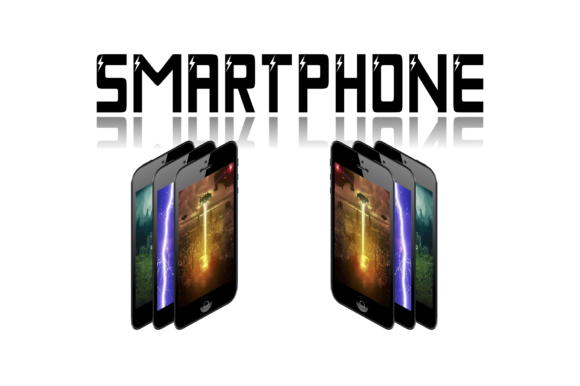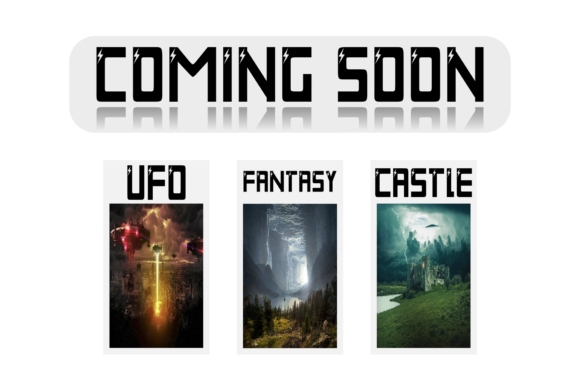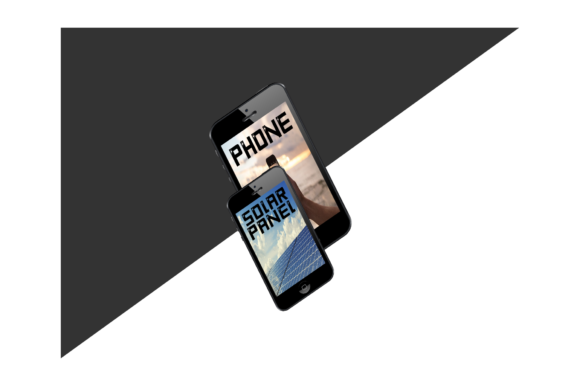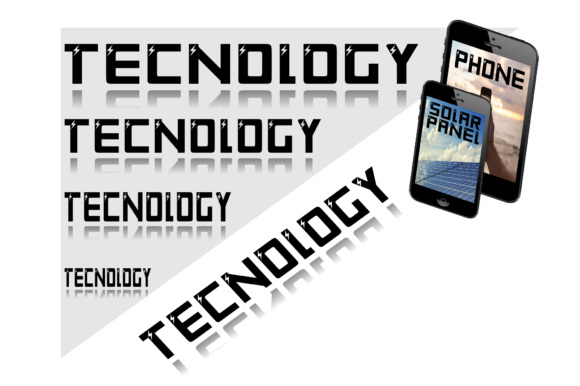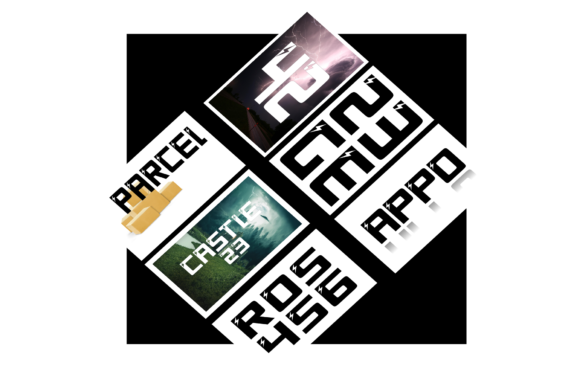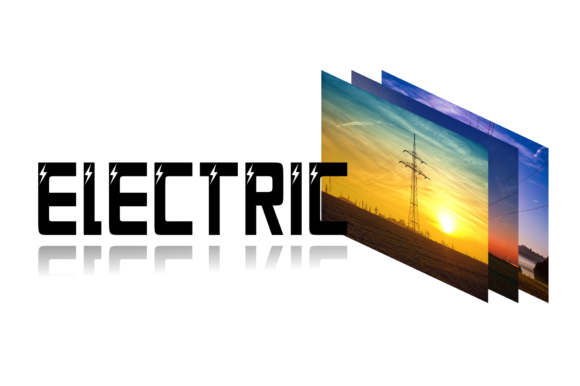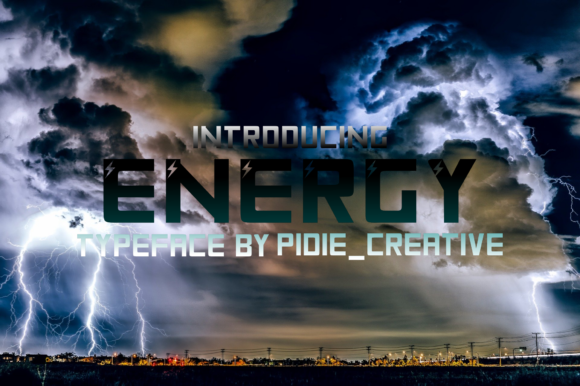
Unleash the Power of Energy Font: Elevate Your Designs with a Bold and Electrifying Style
Are you tired of using the same old fonts in your designs? Do you want to add a spark to your creative projects and make them stand out? Look no further than Energy Font, a bold and chunky lettered display font that’s sure to electrify your designs. Featuring lightning strikes, this font is perfect for designers and crafters who want to add a touch of energy and excitement to their work.
What is Energy Font?
Energy Font is a unique and eye-catching display font that’s designed to make a statement. Its bold and chunky lettering style is perfect for headlines, titles, and other creative projects where you want to grab attention. The font features lightning strikes, which add a dynamic and energetic touch to your designs. Whether you’re working on a logo, poster, or social media graphic, Energy Font is sure to make your project pop.
Key Features of Energy Font
- Bold and Chunky Lettering Style: Energy Font features a bold and chunky lettering style that’s perfect for making a statement.
- Lightning Strikes: The font features lightning strikes, which add a dynamic and energetic touch to your designs.
- Display Font: Energy Font is a display font, making it perfect for headlines, titles, and other creative projects where you want to grab attention.
How to Use Energy Font in Your Designs
Energy Font is a versatile font that can be used in a variety of creative projects. Here are a few ideas to get you started:
- Logos and Branding: Use Energy Font to create a bold and eye-catching logo that’s sure to grab attention.
- Posters and Flyers: Add a touch of energy to your posters and flyers with Energy Font.
- Social Media Graphics: Use Energy Font to create eye-catching social media graphics that will help your posts stand out.
- Web Design: Use Energy Font to add a bold and energetic touch to your website’s headlines and titles.
Tips for Using Energy Font Effectively
Here are a few tips for using Energy Font effectively in your designs:
- Use it Sparingly: Energy Font is a bold font, so use it sparingly to avoid overwhelming your design.
- Pair it with Other Fonts: Pair Energy Font with other fonts to create a unique and interesting contrast.
- Experiment with Colors: Experiment with different colors to find the perfect combination that makes your design pop.
Why Designers and Crafters Love Energy Font
Designers and crafters love Energy Font for its unique and energetic style. Here are a few reasons why:
- Unique Style: Energy Font has a unique style that’s sure to make your designs stand out.
- Versatile: Energy Font is a versatile font that can be used in a variety of creative projects.
Energy Font is a bold and chunky lettered display font that’s sure to electrify your designs. Featuring lightning strikes, this font is perfect for designers and crafters who want to add a touch of energy and excitement to their work. With its unique style, ease of use, and versatility, Energy Font is a must-have font for any creative project. So why wait? Download Energy Font today and unleash the power of energy in your designs!